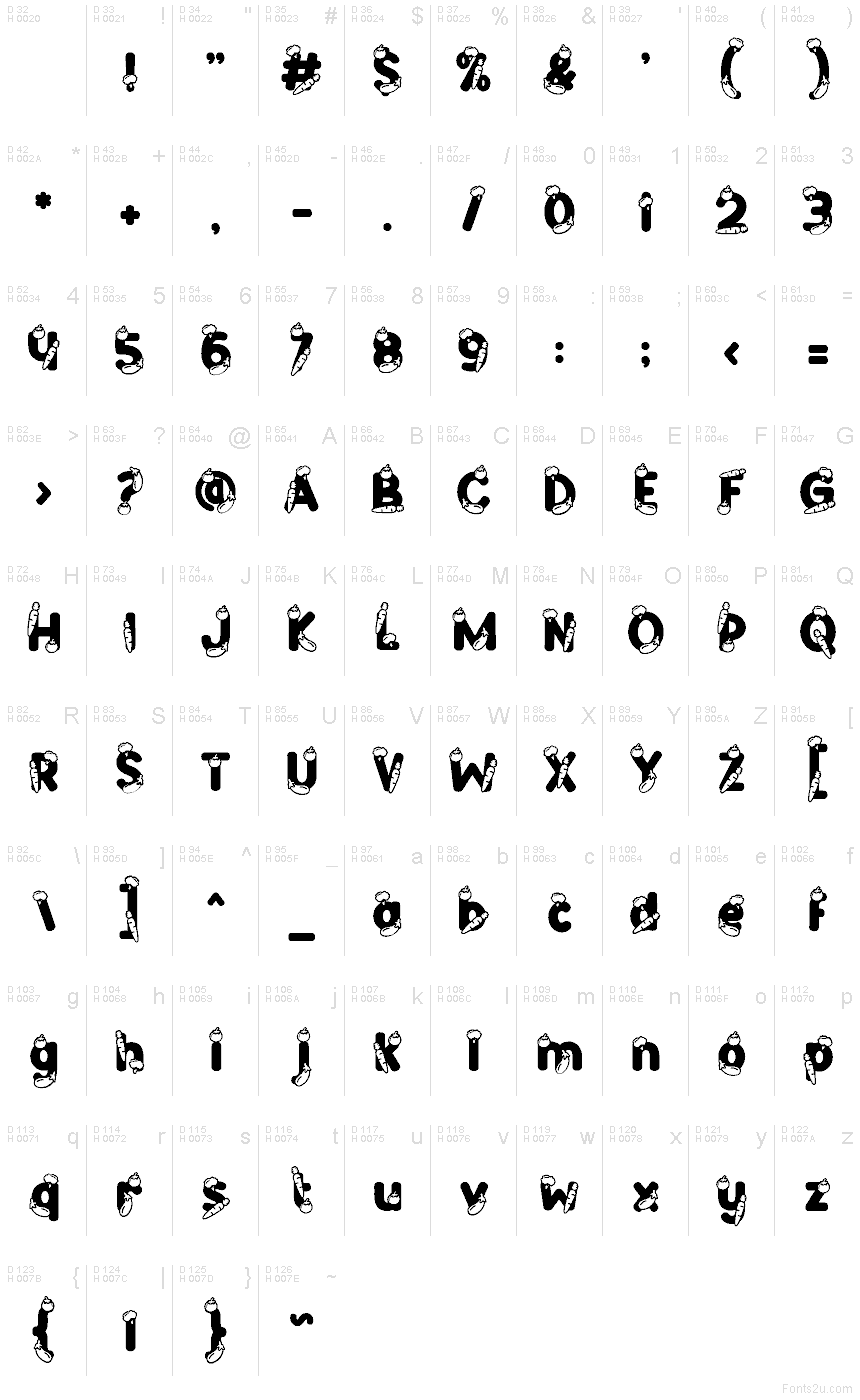
Green Delight Vegetable
Green Delight Vegetable font by PutraCetol Studio is a free display font with decorative effects and bold weights. It mirrors the look of the design of a vegetable, making it the perfect tool for thematic projects focused or related to foods and meals. With no compulsions enforced, this resource can be utilized both personally and commercially.
Use Green Delight Vegetable for food store signage, indoor decorations, logos, stickers linked to health benefits related to vegetables such as those found on packaging labels, nature-related magazines/projects whose aim is healthy living and eating habits, school lunch menus, food truck/car decorations etc.